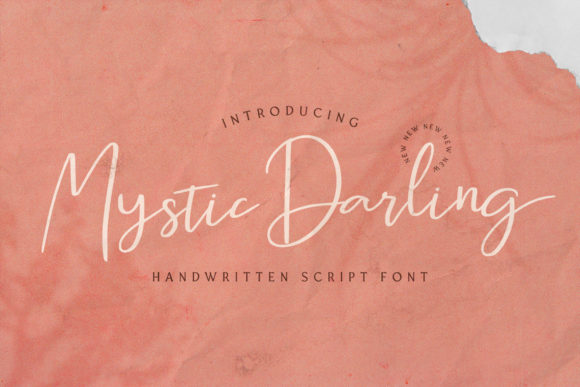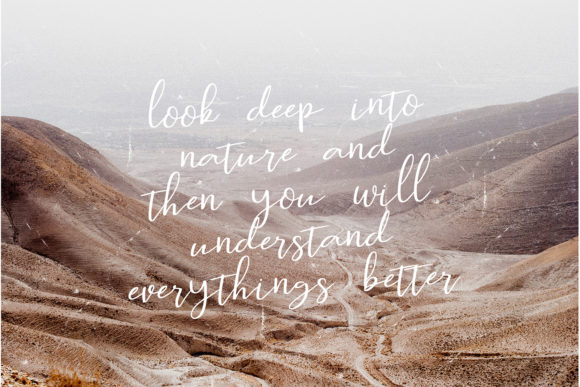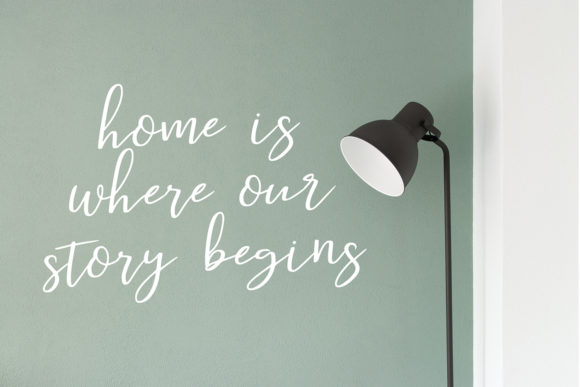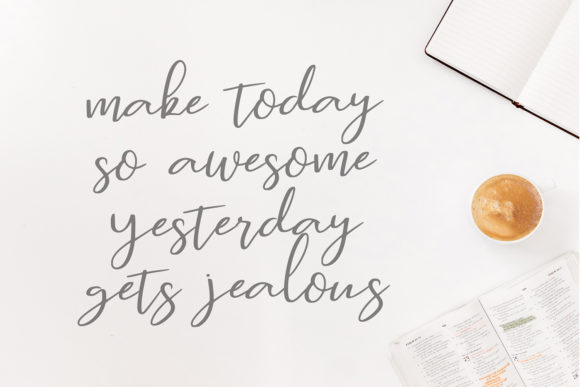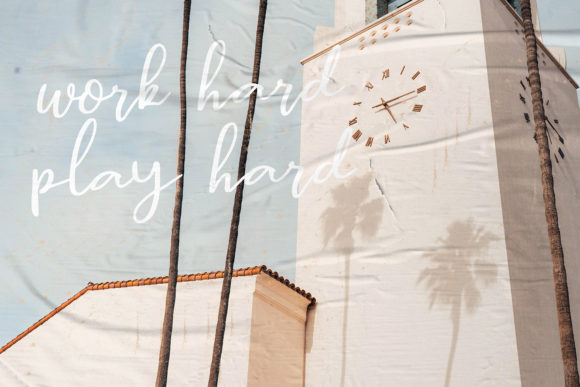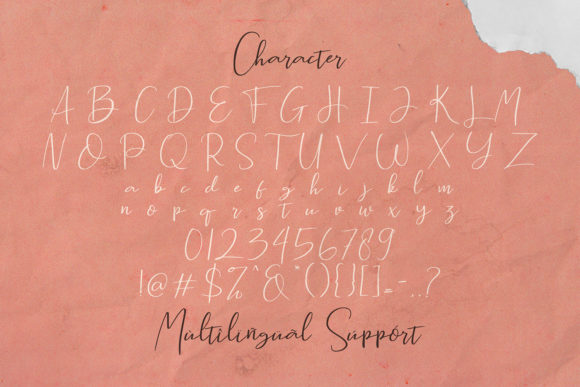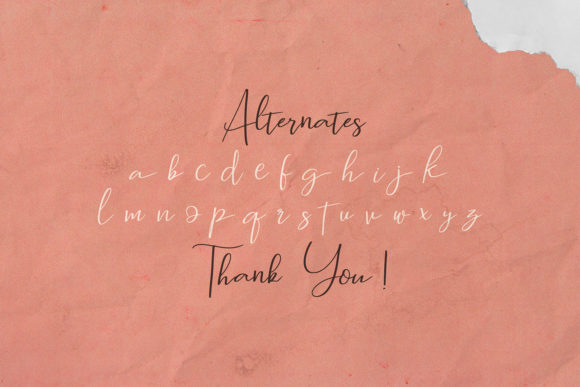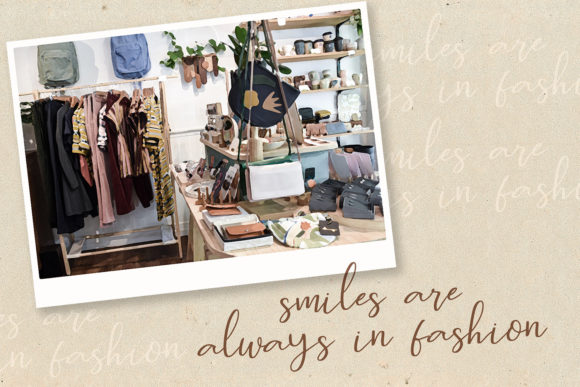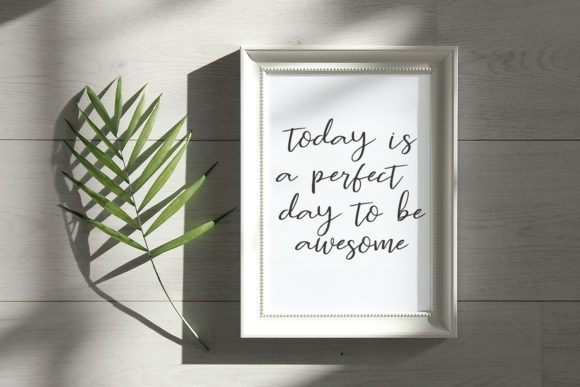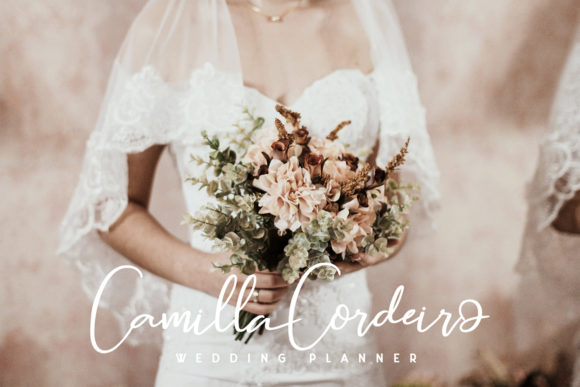
Mystic Darling Font
About Mystic Darling Font
Mystic Darling feels equally charming and elegant. This stunning handwritten font is a stylish homage to classic calligraphy. Mystic Darling is the perfect font for making original and outstanding designs.